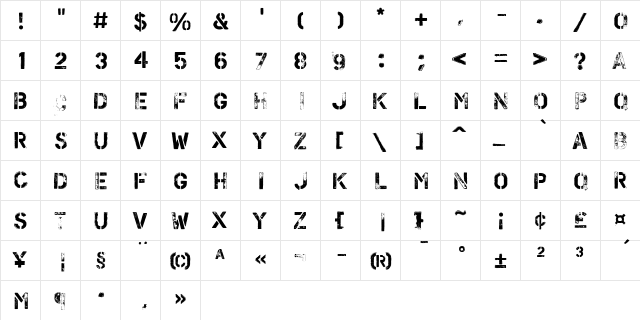
PF Stamps Pro Flex Regular
Design Context for PF Stamps Pro Flex Typeface
PF Stamps Pro Flex has the rough pragmatism of spray-painted stencil signage, adding a raw, street-level authenticity to designs.
A strong choice for packaging that needs edge, warehouse aesthetics, and rough-and-ready visual identities.
Pro Tip: Use PF Stamps Pro Flex at large sizes on packaging, posters, or apparel where the stencil cutaways read clearly. Avoid small sizes where those gaps become visual noise.